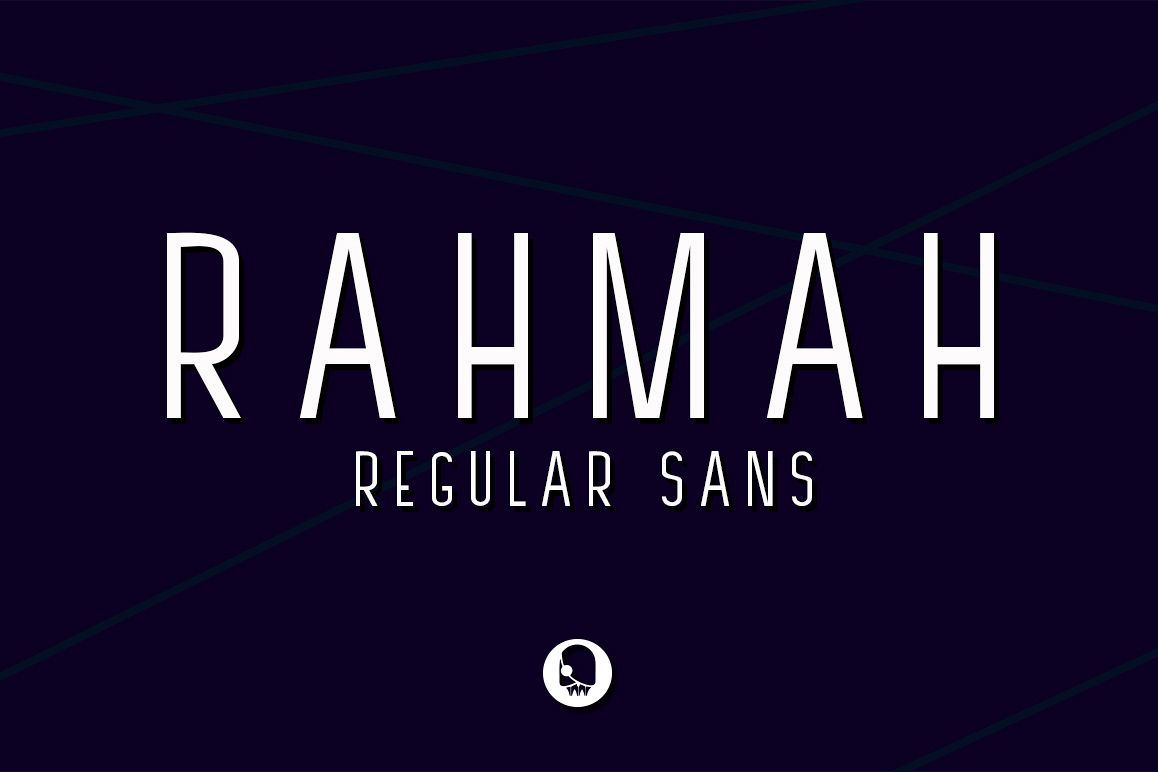
RAHMAH REGULAR SANS
RAHMAH REGULAR.
Font is simple, and I will update with family RAHMAH FONT. Standard fonts are used, for magazines or as his. can be used as utility you want it.